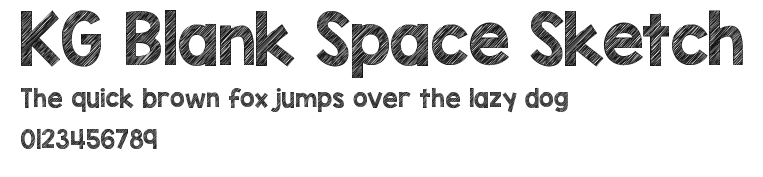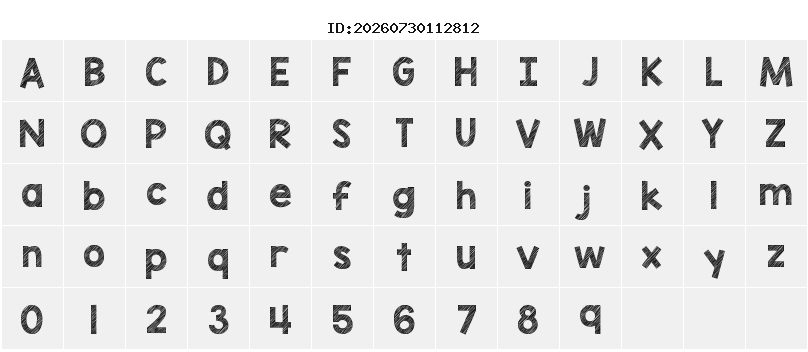
• Font Name: KG Blank Space Sketch
• Font ID: KimberlyGeswein: KG Blank Space Sketch: 2014
• Full Font Name: KG Blank Space Sketch
• Version: Version 1.000 2014 initial release
• PostScript Name: KGBlankSpaceSketch
• Character Count: 347
• Designer: Kimberly Geswein
• Manufacturer: Kimberly Geswein
About KG Blank Space Sketch.ttf
KG Blank Space Sketch.ttf is a modern, elegant sans-serif font designed for ultimate readability and visual harmony. Perfect for branding, headlines, web design, and print materials.